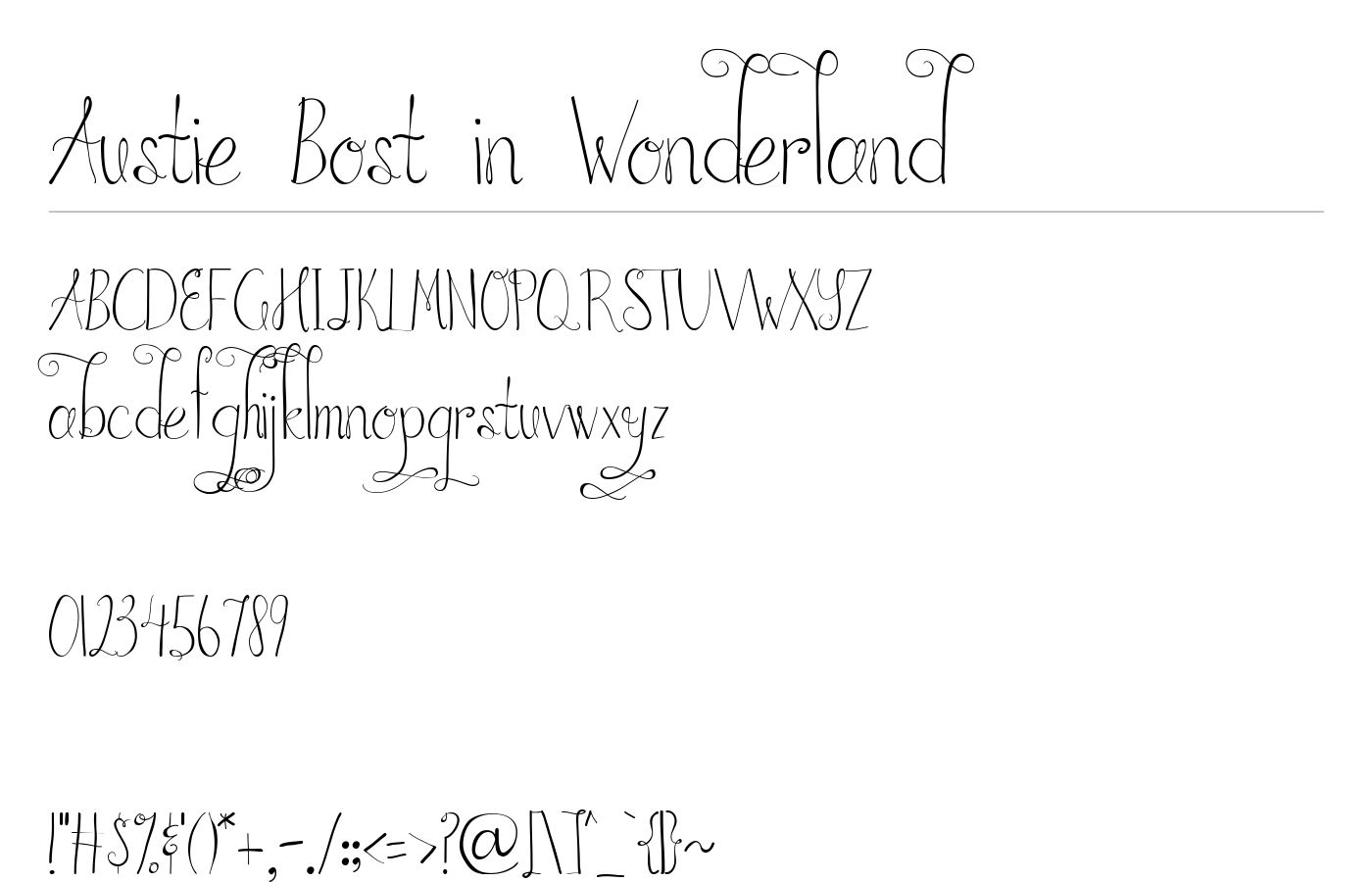
Austie Bost in Wonderland is a delicate, whimsical handwritten font featuring tall, narrow letterforms with playful swirls and loops that evoke a fairy-tale charm. Its thin strokes and elegant flourishes make it perfect for creative, decorative uses where a light, fanciful touch is desired, such as invitations, greeting cards, and dreamy branding projects. This font brings a magical, artistic vibe that adds personality without overpowering the design.
Austie Bost in Wonderland Font
About Austie Bost in Wonderland Font
| Font family | Austie Bost in Wonderland Font |
| Designer | Austin Owens |